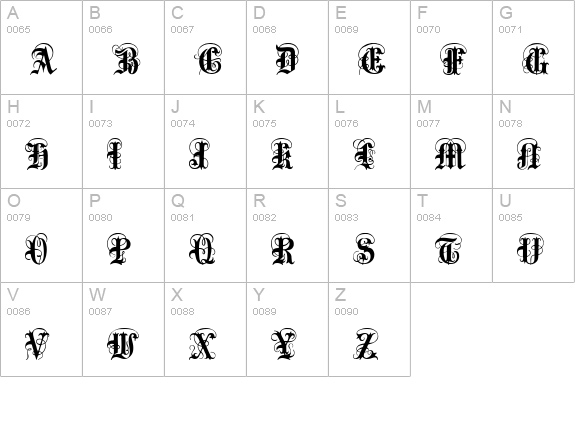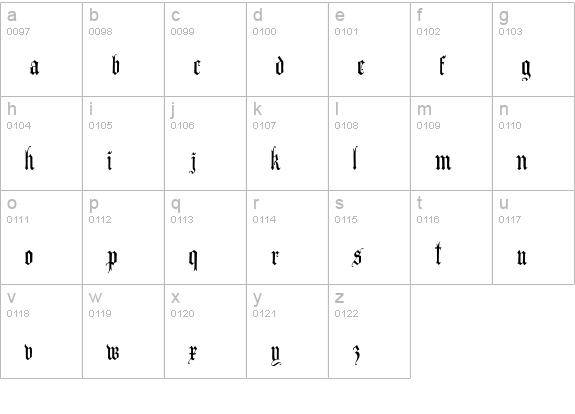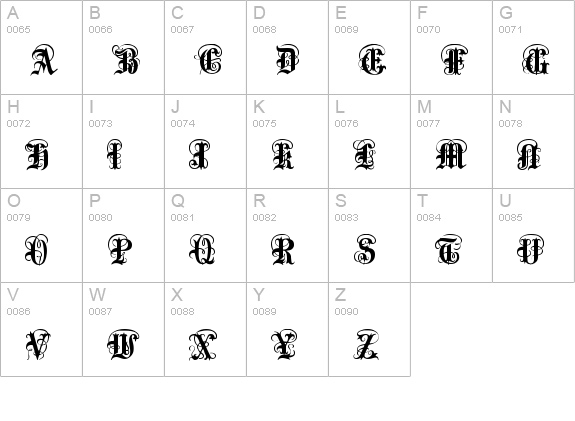
Introducing Anglo Text, a captivating and versatile font that effortlessly combines classic elegance with modernity. This font is perfect for adding a touch of sophistication to any design project, whether it's a logo, a website, or even a wedding invitation. With its clean lines and balanced proportions, Anglo Text exudes a sense of timeless beauty. The carefully crafted serifs and graceful curves make each letter a work of art, ensuring that your text will always leave a lasting impression. But what truly sets Anglo Text apart is its accessibility. This font is freely available to download at FontsMarket.com, allowing designers, creatives, and enthusiasts alike to enjoy its beauty without any barriers. Whether you're a professional designer or a hobbyist, this font is a must-have in your toolkit. Whether you're looking to elevate your branding, enhance your editorial layouts, or simply make a statement, Anglo Text has got you covered. Its versatility allows it to seamlessly adapt to any style or purpose, making it the go-to font for any project. So why wait? Download Anglo Text now from FontsMarket.com and unlock the power of this exquisite font. Let your creativity soar and make a lasting impression with the elegance and charm of Anglo Text.